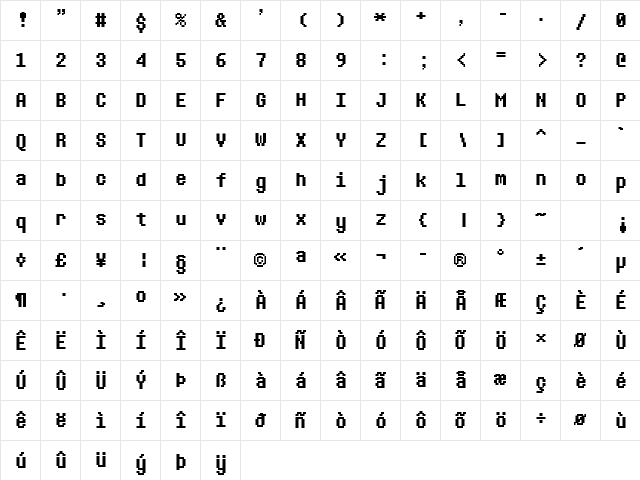
Determination Mono Web Regular
Design Context for Determination Mono Web Typeface
Determination Mono Web brings the precise, column-aligned rhythm of monospaced typography to designs that value technical clarity and systematic order.
Pro Tip: Pair Determination Mono Web with a proportional sans for UI contexts where code-style labels and regular body copy need to coexist.